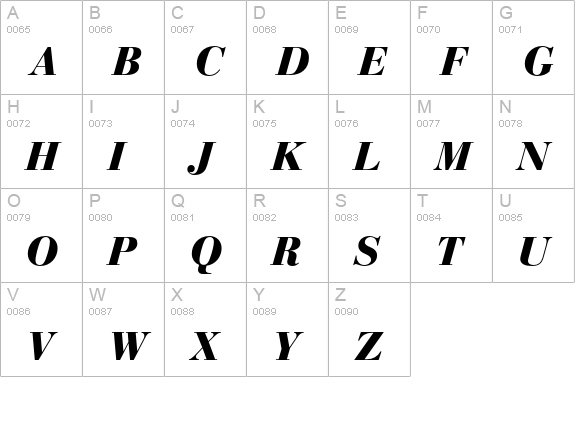
8 Bauer Bodoni** Black Italic 16033 is a maximum-weight, dramatic, italic variant in the 8 typeface family \xE2\x80\x94 well suited to maximum-impact headlines, posters, and packaging.
The 8 Bauer Bodoni Black Italic 16033 font is a sleek and sophisticated typeface that exudes elegance and refinement. Its bold and italic design adds a touch of modernity and flair to any project, making it perfect for creating eye-catching headlines, titles, and logos. With its clean lines and sharp edges, this font commands attention and imparts a sense of authority and professionalism. Best of all, the 8 Bauer Bodoni Black Italic 16033 font is available for free download at FontsMarket.com. Whether you're a designer looking to elevate your creations or a business owner in need of a stylish font for branding, this versatile typeface is sure to impress. Don't miss out on the opportunity to enhance your projects with this stunning font – download it for free today!